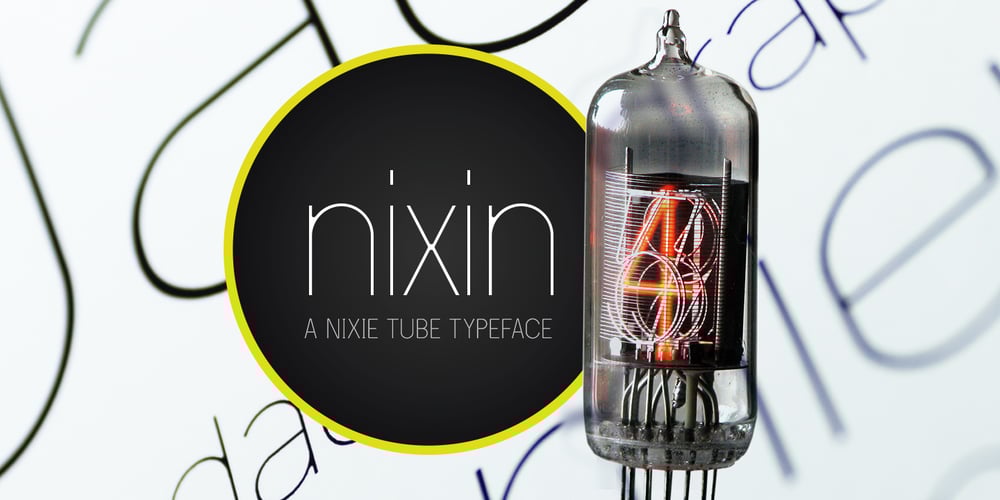
Nixin Font Family was designed by Nelio Barros and published by Kinobrand. Nixin contains 10 styles and family package options. A nixie tube is a technology from the 50’s used to display numerals that are composed by metal filaments that light up much like a lamp bulb. Due to their beauty these little numerals (0-9) are a love case for any designer, and formally it’s where the inspiration for the Nixin typeface came from. All the other typeface characters and weights are an interpretation from the original 10 numerals, always keeping the same minimalistic spirit and formal elegance. Nixin is a geometric and regular typeface, with a vintage touch and a bit of modernism.